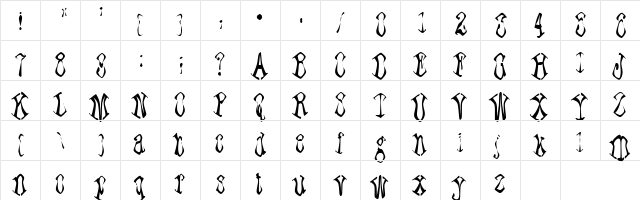
Paraffin Regular
| Foundry | TheBlueJoker |
| Designer | TheBlueJoker |
Design Context for Paraffin Typeface
Paraffin is a composed and adaptable typeface that performs quietly and consistently across a wide range of design contexts.